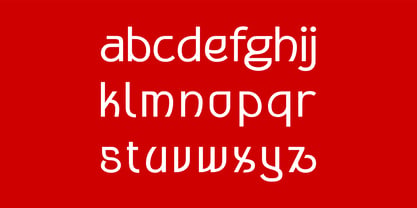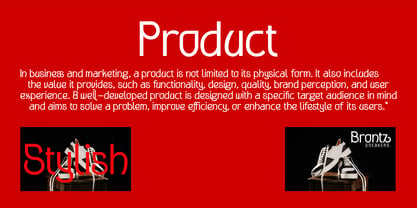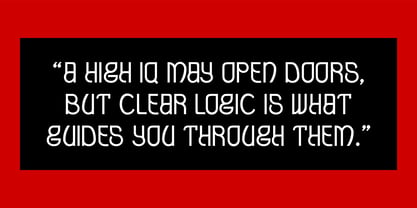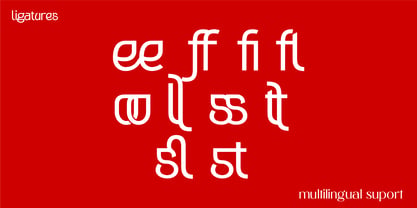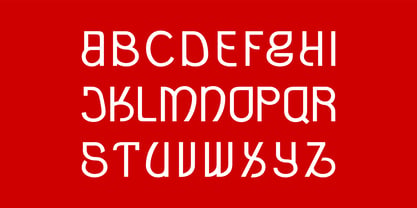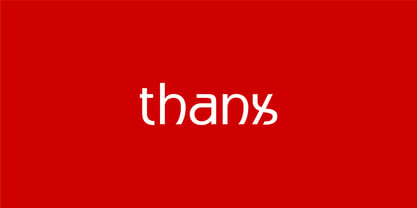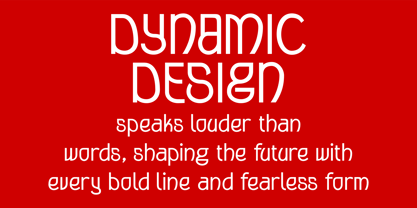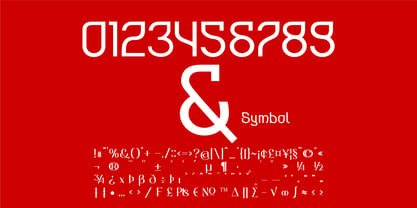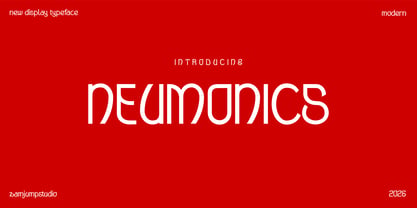
Neumonics
by Zamjump
The Neumonics Font Family was designed by Zamjump, Ahmad Zamzami and published by Zamjump. Neumonics contains 1 styles. More about this family
NEUMONICS is a futuristic display typeface designed to embody intelligence, logic, and modern aesthetics. Inspired by the structure of digital systems and the rhythm of technological evolution, this typeface delivers a clean yet distinctive visual language that stands out in contemporary design. Crafted with precision, NEUMONICS features unique letterforms that blend geometric clarity with experimental curves, creating a balance between logic and creativity. Its character set includes a full range of uppercase and lowercase letters, numerals, symbols, and a rich collection of ligatures that enhance visual flow and typographic expression. NEUMONICS excels in applications such as posters, logos, digital campaigns, and product showcases. Its strong personality makes it ideal for modern brands that want to communicate innovation, intelligence, and forward-thinking identity. With multilingual support and carefully designed stylistic alternates, this typeface adapts seamlessly across different languages and creative contexts. Every detail is built to ensure readability while maintaining a striking and dynamic presence. NEUMONICS is more than just a font—it is a visual system that transforms words into a modern, intelligent experience.
Designers: Zamjump, Ahmad Zamzami
Foundry: Zamjump